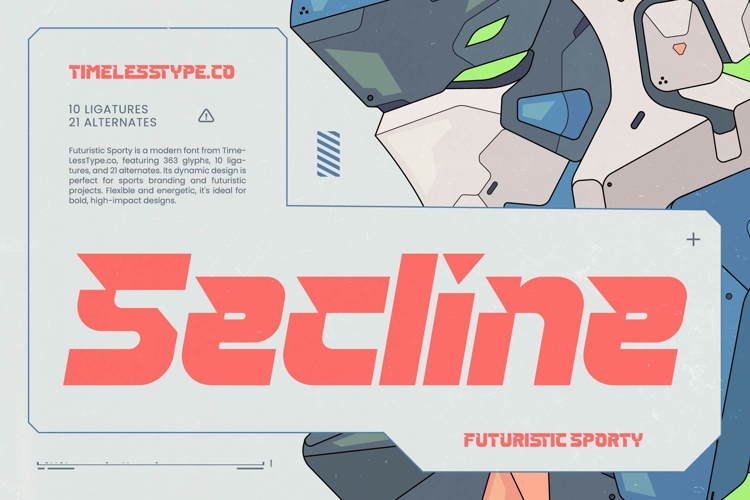
Secline - Futuristic Sporty Font
Secline is a futuristic sporty display font designed with sharp angles, dynamic cuts, and strong forward-leaning letterforms that communicate speed, energy, and modern technology. The typography feels aggressive yet clean, inspired by sci-fi interfaces, esports visuals, and high-performance sports branding. With 10 ligatures, 21 alternates, and over 360 glyphs, Secline offers flexibility for bold typographic compositions while maintaining a consistent, high-impact structure. This font is ideal for sports branding, gaming titles, esports teams, tech logos, posters, UI concepts, futuristic editorials, and digital campaigns that demand motion and intensity. Optimized for both digital and print use, Secline works best as a display font for designers seeking a sporty, futuristic, and performance-driven visual identity.
Uppercase and Lowercase
Numerals
Punctuations (OpenType Standard)
Accents (Multilingual Characters)
Ligatures and Alternative Style Stylistic Set